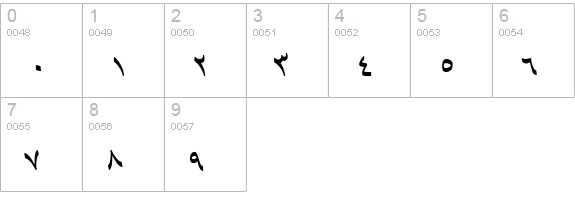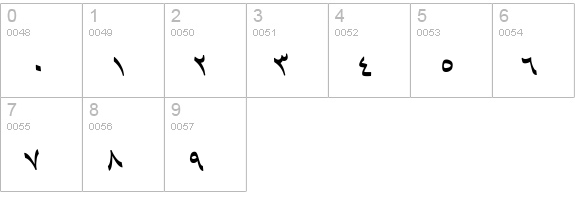
B Baran Italic is a distinctive, italic variant in the B typeface family \xE2\x80\x94 well suited to design and typography projects.
B Baran Italic font is a sleek and elegant typeface that exudes sophistication and style. Its unique design features flowing curves and sharp angles that give it a modern and dynamic look. Perfect for adding a touch of flair to any design project, this font is versatile and eye-catching. What makes B Baran Italic font even more appealing is that it is available for free download at FontsMarket.com. This means that you can easily access this stunning font and use it in your personal or commercial projects without any cost. Don't miss out on the opportunity to enhance your designs with the beauty and elegance of B Baran Italic font. Download it now and elevate your work to the next level.